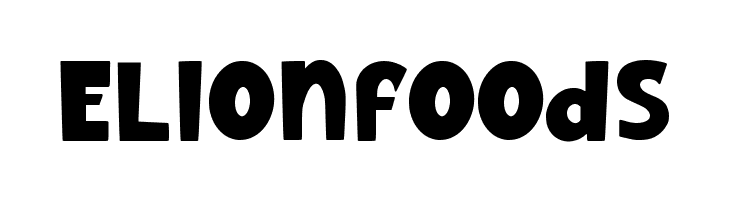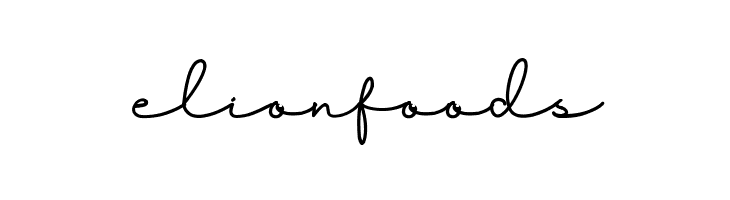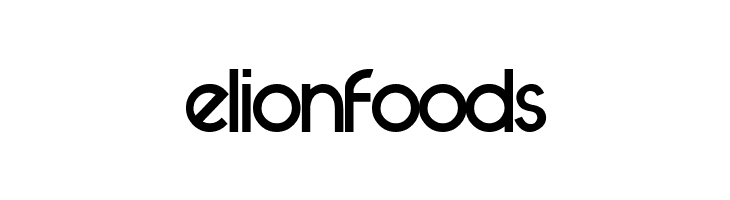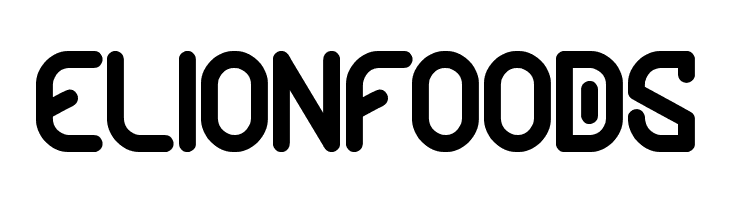
A bold, rounded font with a futuristic and modern aesthetic.
A modern, geometric font with clean lines and a friendly appearance.
A playful, handwritten font with dynamic, flowing strokes.
A lively handwritten font with fluid, cursive strokes and a playful elegance.
A playful, casual handwritten font with smooth, flowing lines and a personal touch.
A bold, playful font with chunky, rounded characters.
A textured serif font with a hand-drawn, modern twist.
A decorative font with bold, geometric shapes and an ancient, mystical style.
A bold, angular font with a gothic, medieval aesthetic.